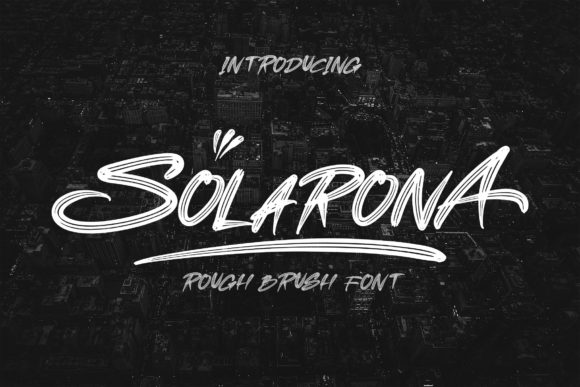
Solarona Font – The Perfect Font For Magazine Text
Stand out from the crowd with Solarona Font, not your average display font! This eye-catching font oozes confidence and demands attention, featuring bold and brushed letters that exude an assertive and captivating presence. Whether you're creating captivating magazine covers, captivating posters, or bold headlines, Solarona Font will elevate your designs to new heights. Step into the spotlight and let your words shine with the power of Solarona Font!
Dive into a world of limitless possibilities with Solarona Font. Its versatility knows no bounds, effortlessly complementing a diverse range of projects that yearn for an unforgettable touch. Unleash your creativity and witness the transformation as Solarona Font breathes life into your designs.
Experience the magic of Solarona Font, meticulously crafted by the talented dwikrisdiantoro9, and elevate your creations to the next level. Its fierce and imposing nature will leave a lasting impression, captivating your audience and leaving them yearning for more. Embrace the power of Solarona Font and let your designs soar!